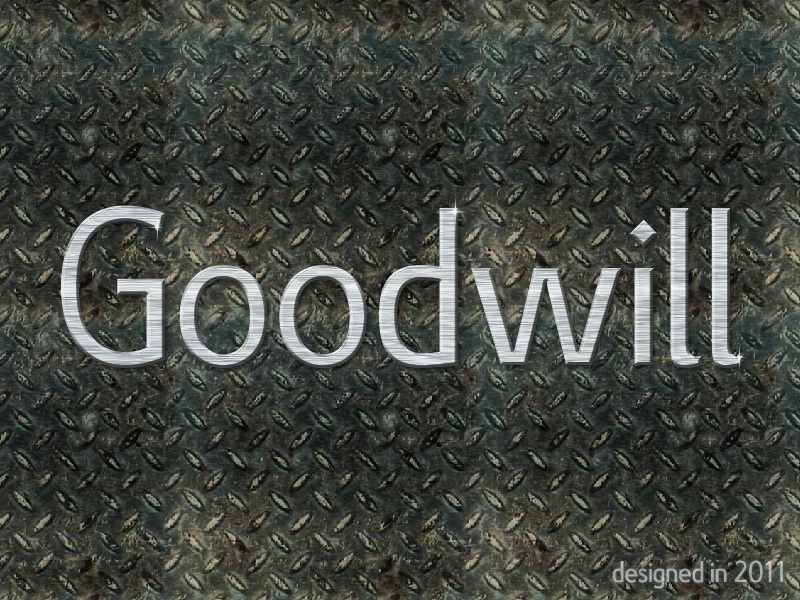
Goodwill by Lukas Schiltknecht is a free contemporary sans serif with tall proportions and an unusually lively range of stroke widths. Broad round forms sit beside narrow uprights, giving the lettering a varied silhouette rather than a strictly uniform geometric build. The shapes are clean, but details such as the pinched joins and compact curves keep them distinctive.
In editorial design, its height and changing widths can lend magazine covers and feature pages a fashion-conscious edge. The same crisp, slightly eccentric drawing suits cultural posters, gallery programs, and identity work for independent shops. It will appeal most to designers seeking modern sans serif lettering with a deliberate human irregularity.